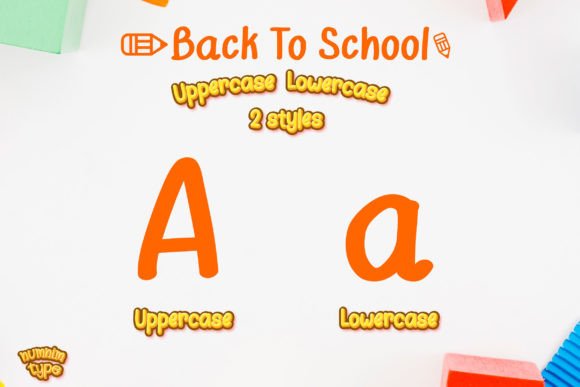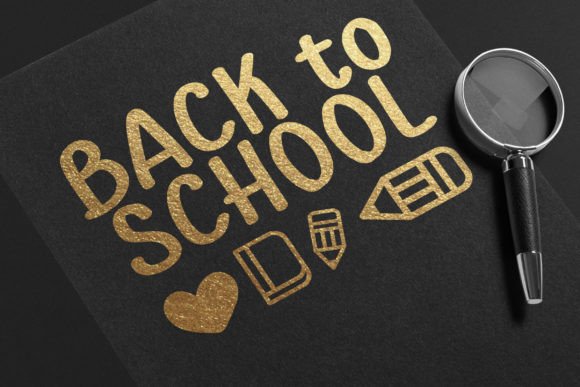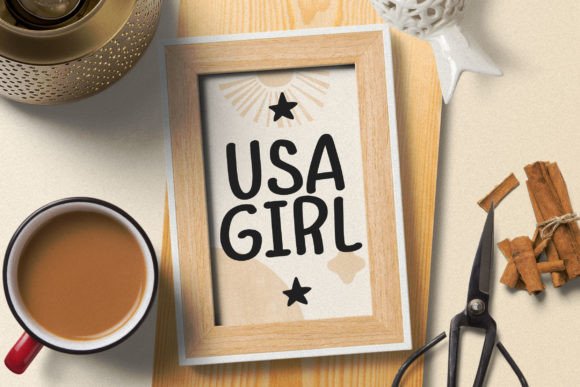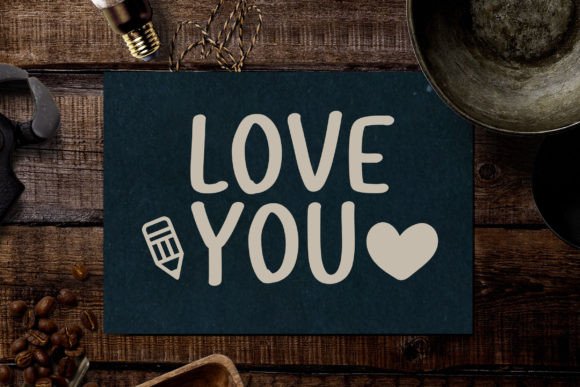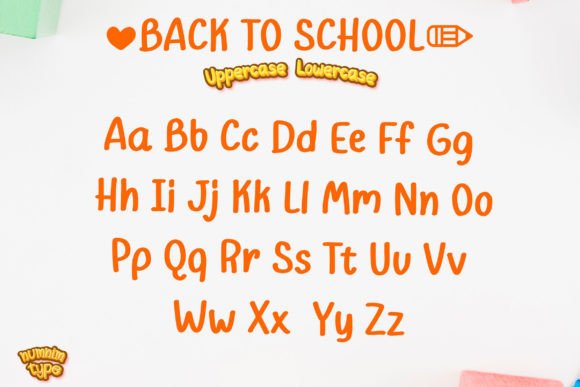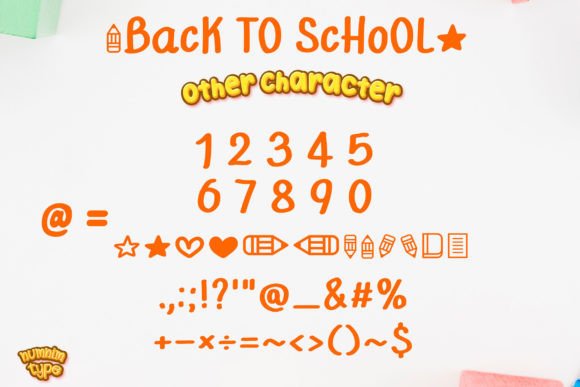
Back to School Font: Add a Touch of Joy to Your Designs
As the new academic year approaches, designers and crafters are on the lookout for fonts that capture the excitement and playfulness of going back to school. If you’re searching for a font that embodies the spirit of learning and fun, look no further than the Back to School Font. This delightful handwritten font is perfect for creating eye-catching designs for stickers, mugs, t-shirts, ornaments, school kids’ event cards, and more!
What Makes Back to School Font So Special?
The Back to School Font is a carefully crafted handwritten font that exudes a vibrant, joyful feel. Its fun and playful characters are designed to bring a smile to your face and make your designs stand out. Whether you’re creating materials for a school event, crafting personalized gifts, or simply looking for a font to add some whimsy to your projects, this font is sure to delight.
One of the best things about the Back to School Font is its versatility. Its playful design makes it perfect for a wide range of projects, including:
- Stickers: Create fun and colorful stickers for school supplies, laptops, or water bottles.
- Mugs: Design personalized mugs for teachers, students, or parents.
- T-shirts: Add a playful touch to school-themed t-shirts or hoodies.
- Ornaments: Create custom ornaments for school events or as a fun keepsake.
- School Kids’ Event Cards: Design eye-catching invitations, flyers, or posters for school events.
The Back to School Font is PUA (Private Use Area) encoded, making it easy to access all glyphs and swashes. This means you can easily insert special characters, such as ligatures, flourishes, and other decorative elements, to add an extra touch of personality to your designs.
Why Choose the Back to School Font?
With so many fonts available, why choose the Back to School Font? Here are just a few reasons:
- Unique and Playful Design: This font is designed to stand out and add a touch of whimsy to your projects.
- Ease of Use: The font is PUA encoded, making it easy to access all glyphs and swashes.
- Versatility: The font is perfect for a wide range of projects, from stickers to t-shirts.
- High-Quality Design: The font is carefully crafted to ensure high-quality design and clear readability.
Tips for Using the Back to School Font
To get the most out of the Back to School Font, here are a few tips:
- Experiment with Colors: The font looks great in bright, bold colors, but don’t be afraid to try out different color combinations.
- Add Graphics: Combine the font with fun graphics, such as pencils, books, or apples, to add an extra touch of personality.
- Mix and Match: Try pairing the Back to School Font with other fonts to create a unique and eye-catching design.